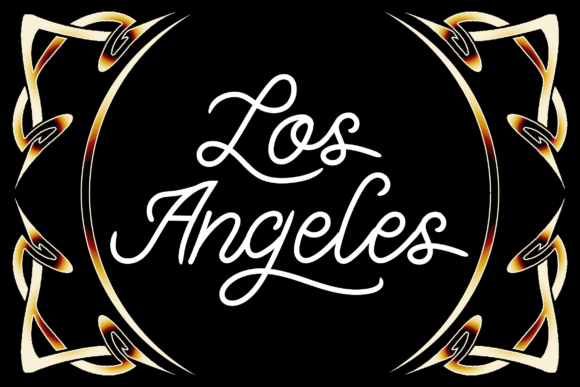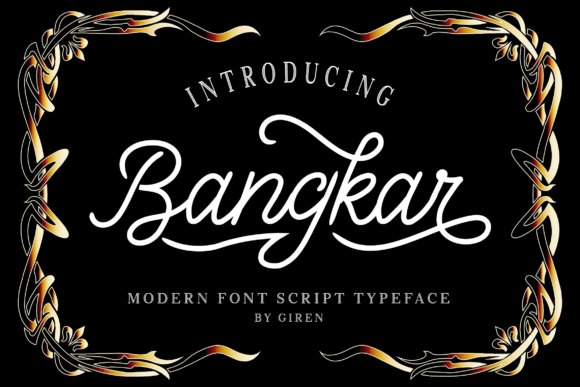
Bangkarb Font
Bangkar Font
The Bangkar is a modern handwritten typeface. It has an elegant feel which is perfect for giving your design an upscale and chic look.
It can be used for logos, clothing, quotes, business cards, posters, watermarks, signatures, magazines, and much more